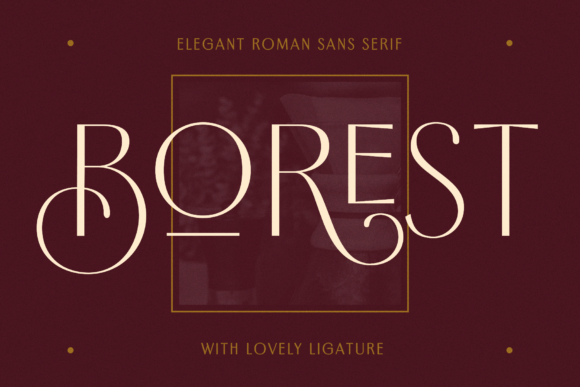
Borest Font: A Timeless Romantic Sans Serif Font
Are you looking for a font that exudes elegance and sophistication? Look no further than Borest Font, a carefully crafted romantic sans serif font that is sure to inspire your creative projects. In this article, we’ll take a closer look at Borest Font, its features, and how you can use it to elevate your designs.
What is Borest Font?
Borest Font is a romantic sans serif font that is designed to evoke a sense of classic elegance. Its clean lines, subtle curves, and precise lettering make it perfect for a wide range of design applications, from wedding invitations and branding to packaging and digital media.
Key Features of Borest Font
- Romantic Sans Serif Design: Borest Font features a classic sans serif design with subtle curves and elegant lines. This makes it perfect for designs that require a touch of sophistication.
- Classic Look: Borest Font has a timeless look that is reminiscent of classic fonts from the past. This makes it perfect for designs that require a sense of nostalgia or tradition.
- High-Quality Design: Borest Font is designed to the highest standards, with precise lettering and attention to detail. This ensures that your designs look professional and polished.
How to Use Borest Font
Borest Font is a versatile font that can be used for a wide range of design applications. Here are some ideas to get you started:
- Wedding Invitations: Borest Font is perfect for wedding invitations, with its elegant design and romantic feel.
- Branding: Use Borest Font to create a professional and sophisticated brand identity for your business.
- Packaging: Borest Font is suitable for packaging design, adding a touch of elegance to your product labels and packaging.
- Digital Media: Use Borest Font in your digital media, including social media graphics, blog posts, and website designs.
Benefits of Using Borest Font
Borest Font offers a range of benefits, including:
- Elegant Design: Borest Font features an elegant design that is sure to impress.
- Versatility: Borest Font can be used for a wide range of design applications.
- High-Quality: Borest Font is designed to the highest standards, ensuring that your designs look professional and polished.
Tips for Using Borest Font
Here are some tips for using Borest Font:
- Use it with a contrasting font: Pair Borest Font with a contrasting font to create visual interest and add depth to your designs.
- Experiment with different sizes: Borest Font looks great in a range of sizes, from large headings to smaller body text.
- Add a personal touch: Use the glyphs and swashes to add a personal touch to your designs and make them more unique.
Borest Font is a timeless romantic sans serif font that is sure to inspire your creative projects. With its elegant design, versatility, and high-quality construction, it’s the perfect choice for designers looking for a sophisticated font. Whether you’re designing wedding invitations, branding, packaging, or digital media, Borest Font is a great choice.